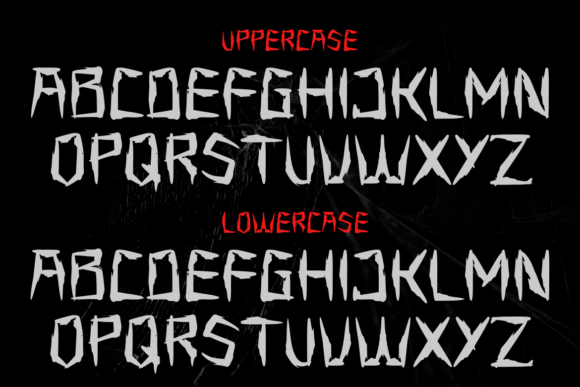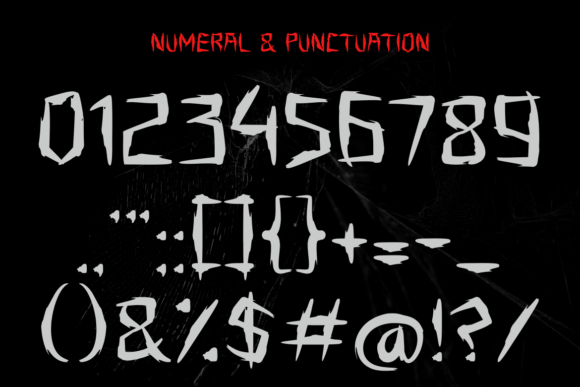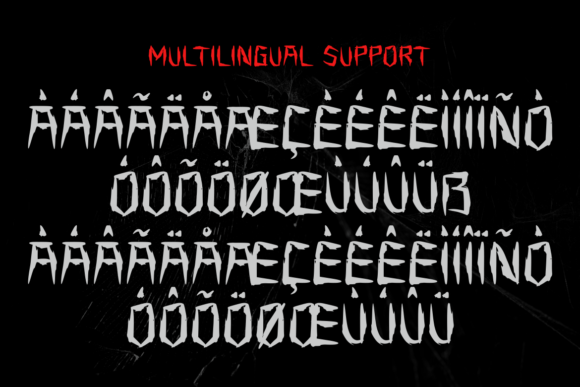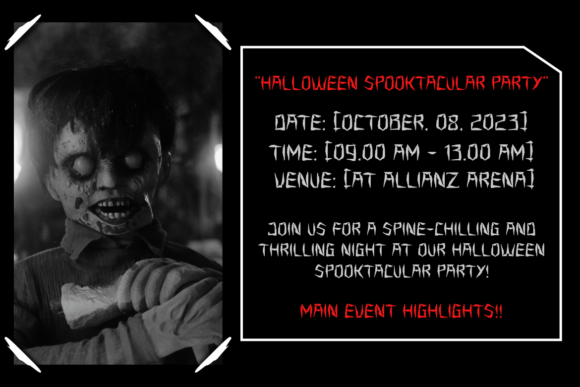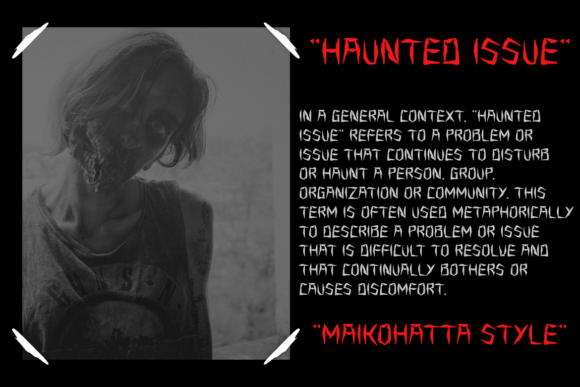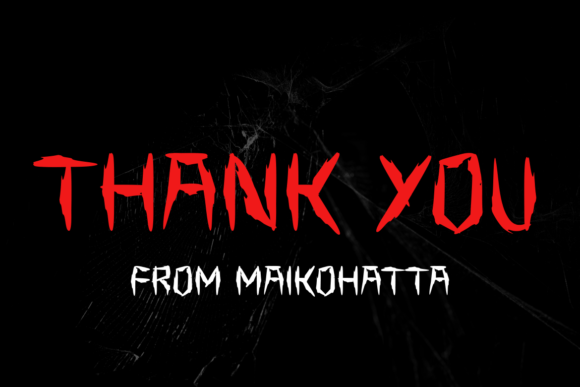
The Perfect Font for a Spooky Season
As the sun sets on a crisp autumn evening, the air is filled with the sweet scent of pumpkin spice and the thrill of Halloween magic. It’s the perfect time to let your imagination run wild and create something truly unforgettable. For designers, this means breaking out the best tools in their arsenal – and for many, that includes the perfect font.
Enter the Horror Secret Font, a masterfully crafted typeface designed to evoke the spirit of Halloween celebrations. With its eerie, mysterious atmosphere, this font is the perfect choice for party invitations, posters, merchandise designs, greeting cards, and more. Whether you’re a seasoned pro or a design newbie, the Horror Secret Font is a valuable addition to your toolkit – and we’re here to show you why.
Horror Secret Font Key Features
- Unique Character Set: The Horror Secret Font features a unique set of characters, including alternate glyphs, ligatures, and ornaments, which can be accessed through the font’s advanced features.
- Highly Customizable: The font includes a wide range of OpenType features, such as stylistic sets, contextual alternates, and swash characters, allowing designers to create highly customized and nuanced typography.
Horror Secret Font Review
Overall, I think the Horror Secret Font is a decent addition to any designer’s toolkit. There are a few elements that stand out to me: ✨ The unique, distressed aesthetic of the font is perfect for horror-themed projects or anything that needs a touch of eeriness. ✨ The font’s flexibility in terms of style and formatting is also noteworthy – it can range from a creepy, handwritten feel to a more industrial, horror-movie-inspired look.
Here are some of the font’s key features:
- Unique, distressed aesthetic
- Flexibility in terms of style and formatting
- Perfect for horror-themed projects
- Can be used for a range of design applications, from posters to novels
However, there are a few limitations to consider: ⚠️ The font may be a bit too over-the-top for some projects, and the distressed aesthetic may not be to everyone’s taste. Additionally, some users may find the font’s formatting options to be a bit confusing.
Overall, I think the Horror Secret Font is a great option for designers who are looking to add a touch of horror to their projects. With its unique aesthetic and flexibility in terms of style and formatting, it’s a great choice for anyone looking to create a spooky or eerie atmosphere.
The Horror Secret Font is perfect for creating spooky and eerie designs for Halloween, horror movies, or other themed events. It can also be used to add a touch of mystery and intrigue to your designs.
To get the most out of the Horror Secret Font, try combining it with other spooky elements like creepy graphics, dark colors, and eerie textures. You can also experiment with different font sizes, colors, and styles to create a unique and unsettling atmosphere.